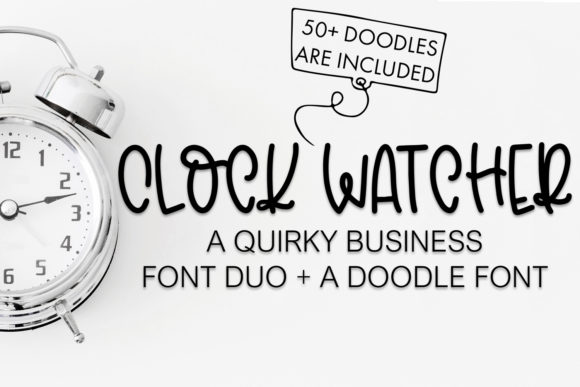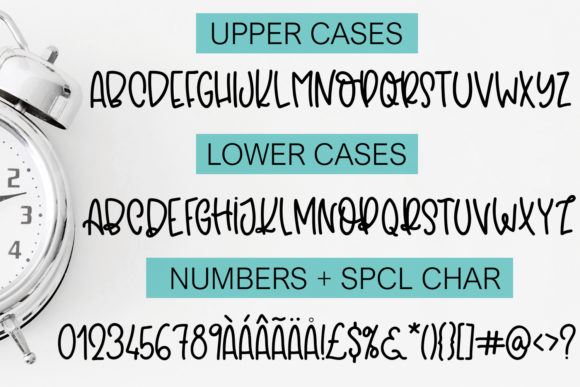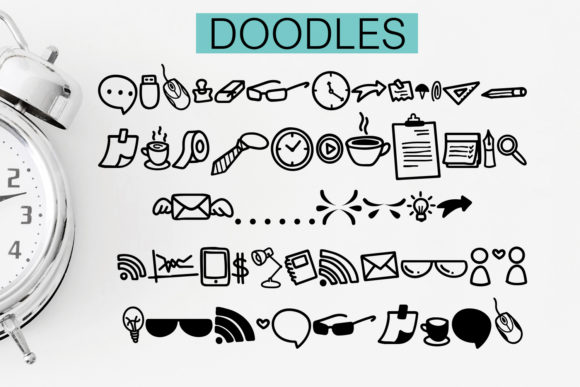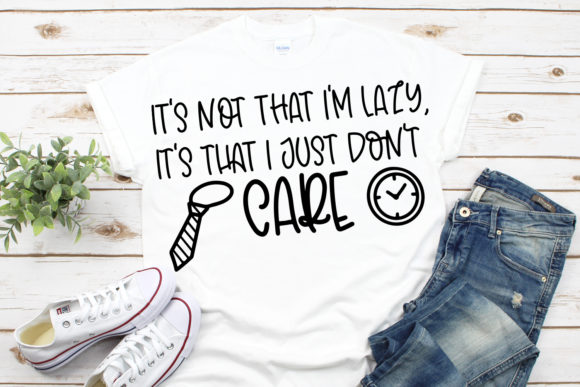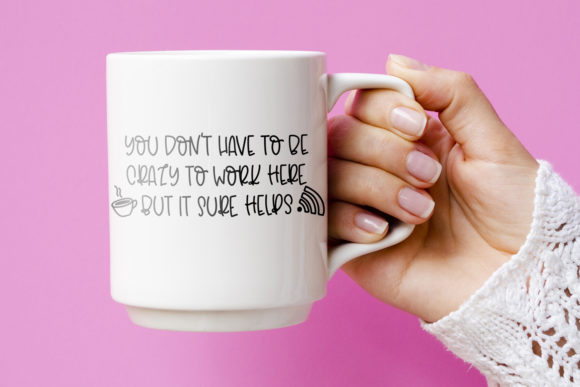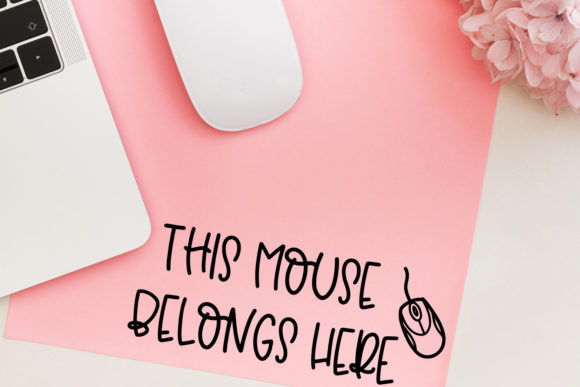
Clock Watcher Font
About Clock Watcher Font
Clock Watcher is a cute and quirky handwritten font. It features a wealth of doodles which will enrich your design ideas. Add this font to your favorites and notice how it makes your projects come alive!